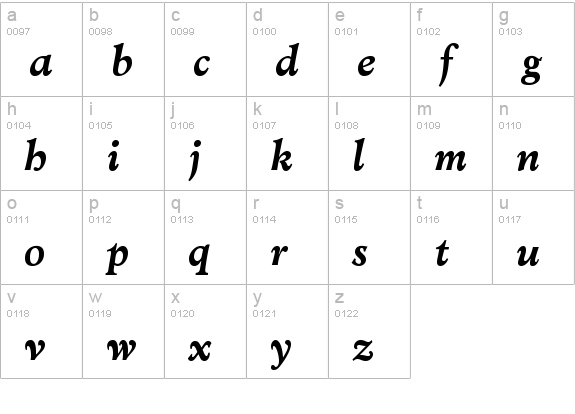
Minister Bold Italic Font Details
Minister Bold Italic is a strong, high-contrast, italic variant in the Minister typeface family \xE2\x80\x94 well suited to headlines, attention-grabbing titles, and strong calls-to-action.
Minister Bold Italic font is a modern and stylish typeface that exudes confidence and sophistication. Its bold strokes and elegant italic design make it perfect for making a statement in any project. Whether you are creating eye-catching headlines or designing sleek branding materials, Minister Bold Italic will surely stand out. The best part? This versatile font is available for free download at FontsMarket.com. So you can easily access this premium font without any cost, making it a valuable addition to your design toolkit. Elevate your projects with Minister Bold Italic and make a lasting impression with its unique and impactful aesthetic.